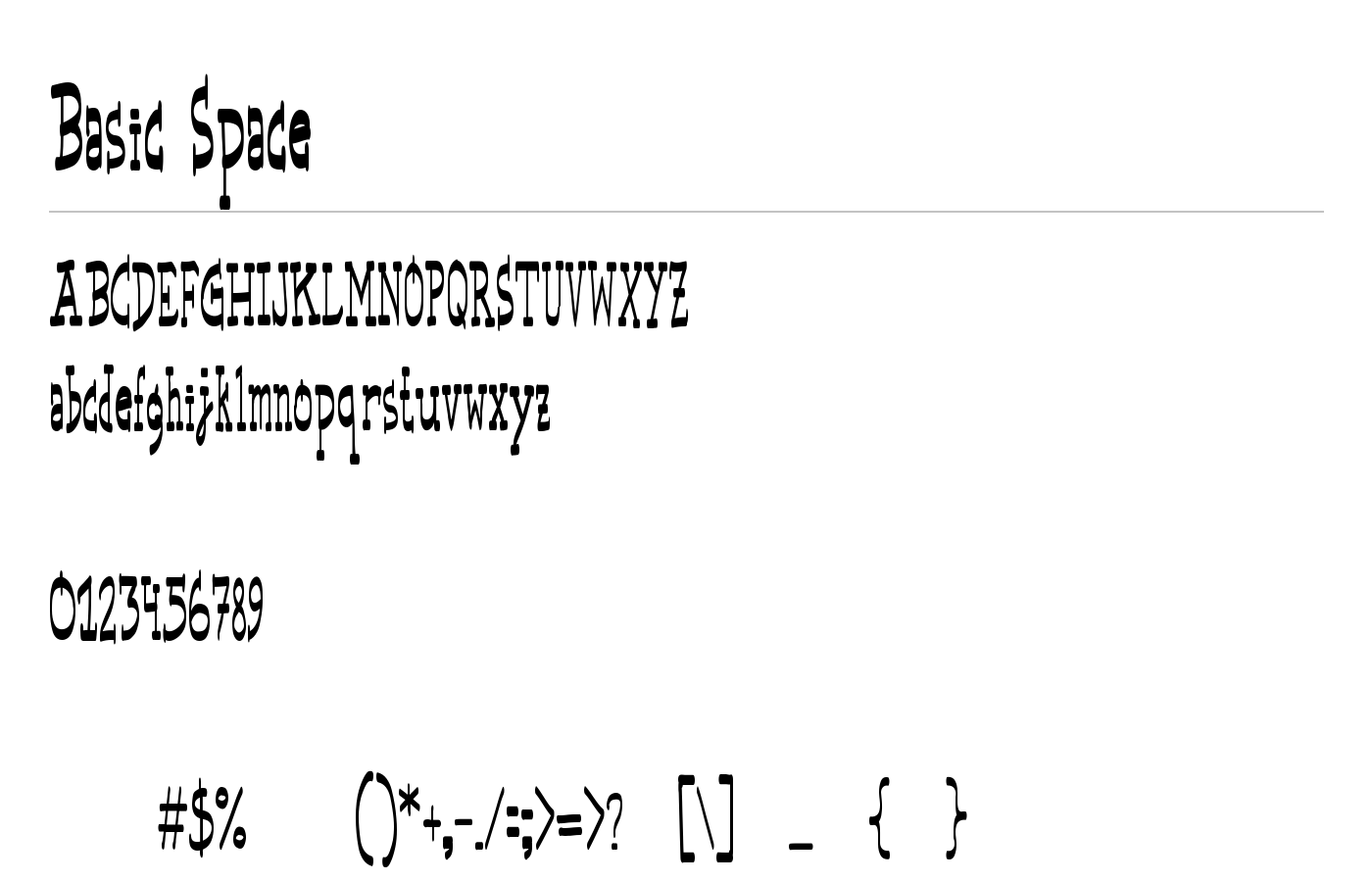
Basic Space Font is a bold, condensed serif typeface with a slightly quirky and irregular design that gives it a playful yet vintage vibe. Its tall, narrow letterforms and distinct serif details make it ideal for eye-catching headlines, posters, and creative branding where a unique, retro character is desired. This font works well when you want to add personality and a touch of curiosity to your design while maintaining readability.
Basic Space Font
About Basic Space Font
| Font family | Basic Space Font |
| Designer | Joanne Abellar |